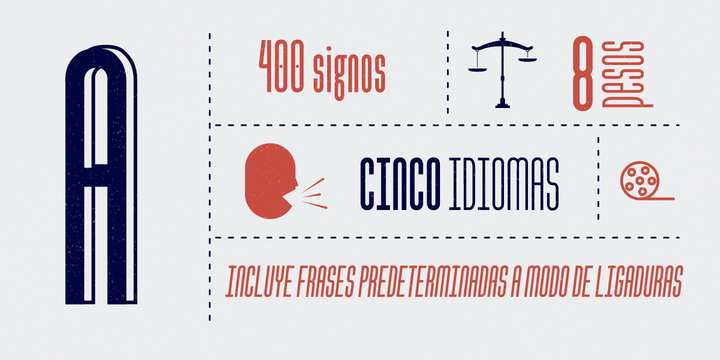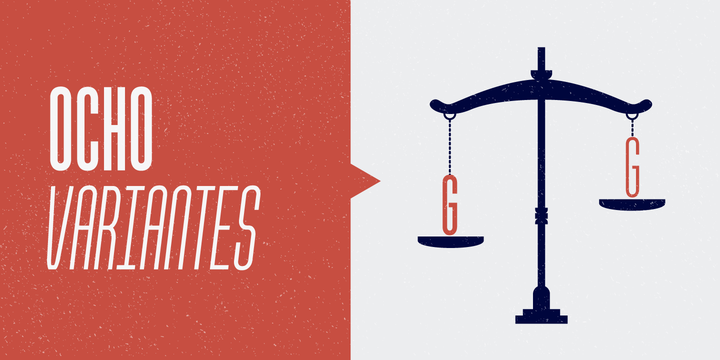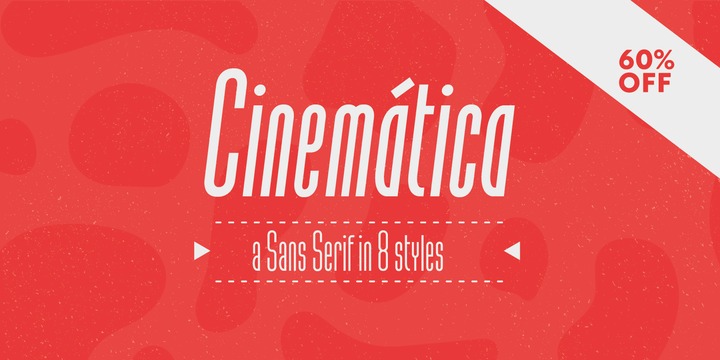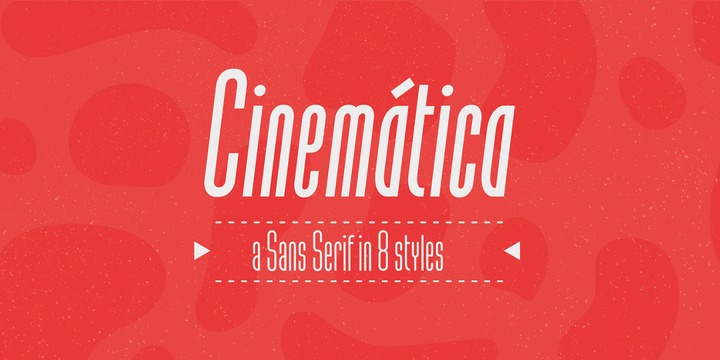
Cinematica was specially designed for film credits in communication pieces. Due to its space saving qualities, geometric elegance of its shapes, and eight wights; it allows a wide range of uses.
Its geometry makes Cinem·tica able to harmonize and unify any text, incorporating the necessary signs for composition in English, Spanish, Italian, French, German and Portuguese.
The Regular weight also incorporates statements that usually appear in film credits (such as ìdirected byî, ìproduced byî, etc.
) that have been programmed as predetermined ligatures and can be accessed by typing a short sequence of signs to avoid typing the full phrase.